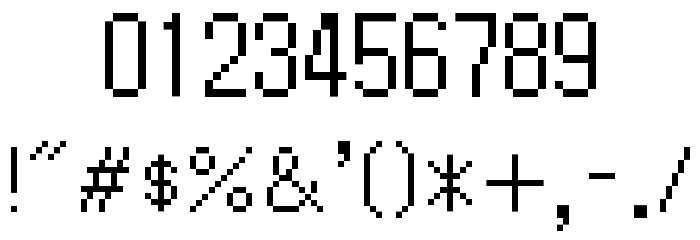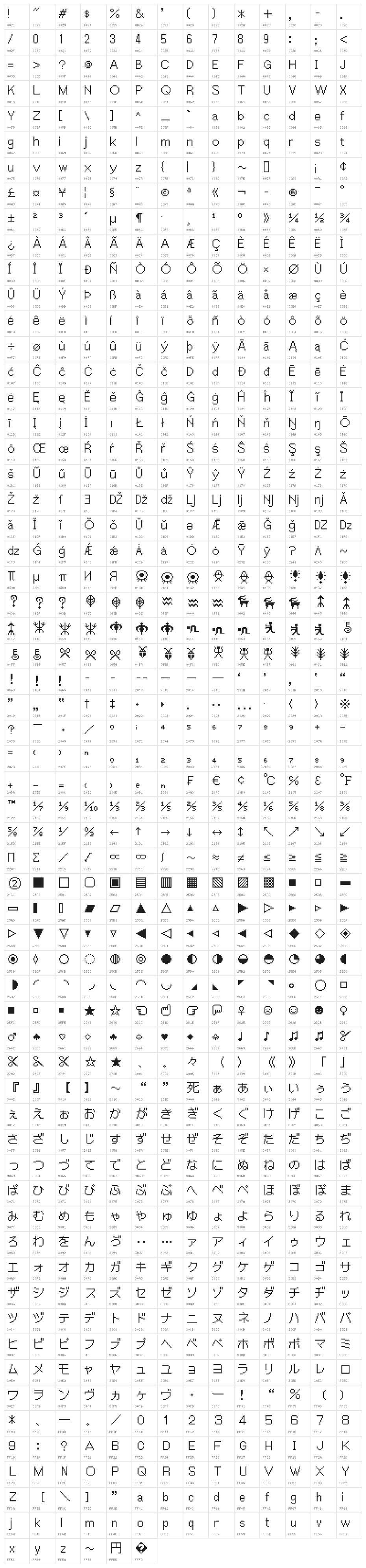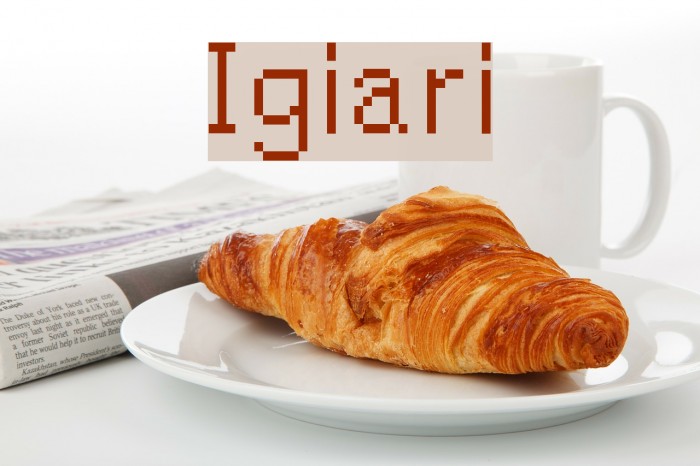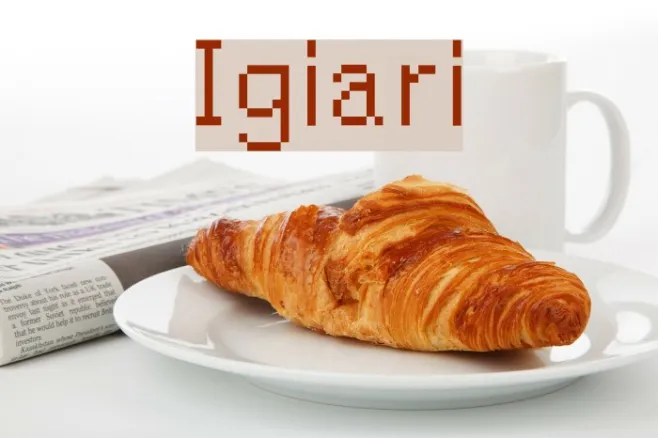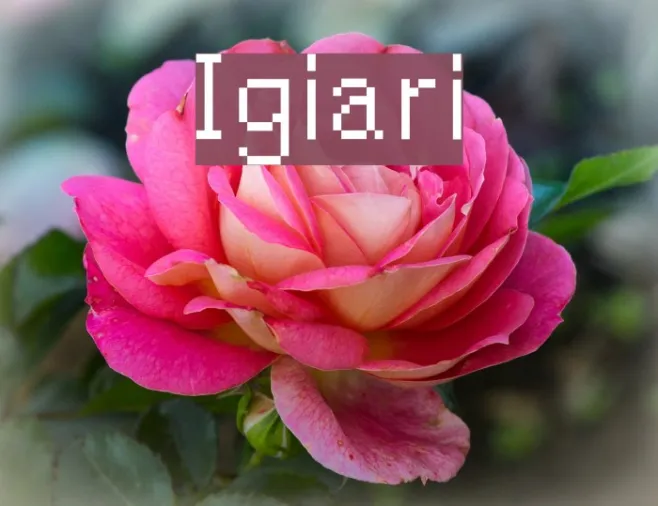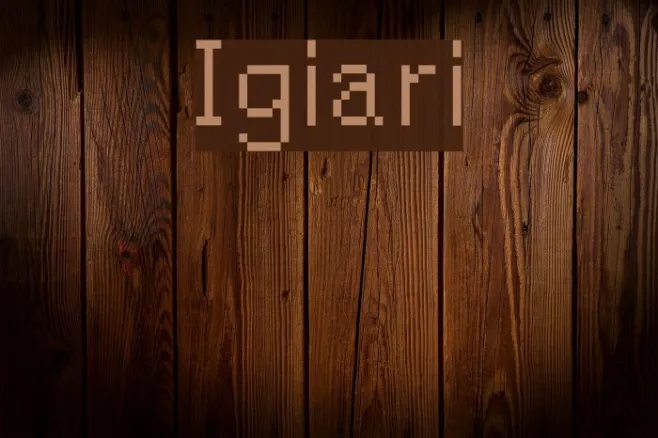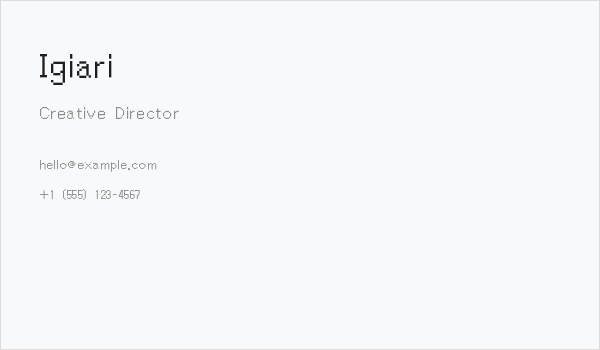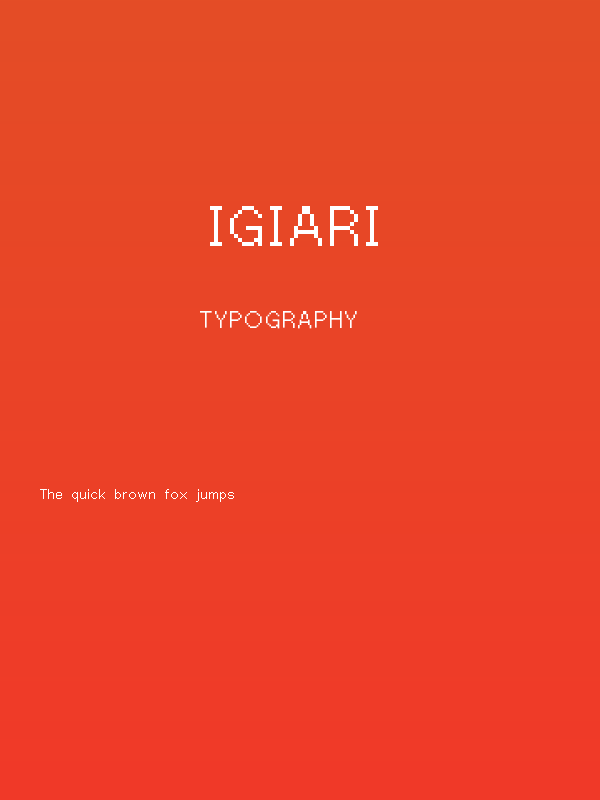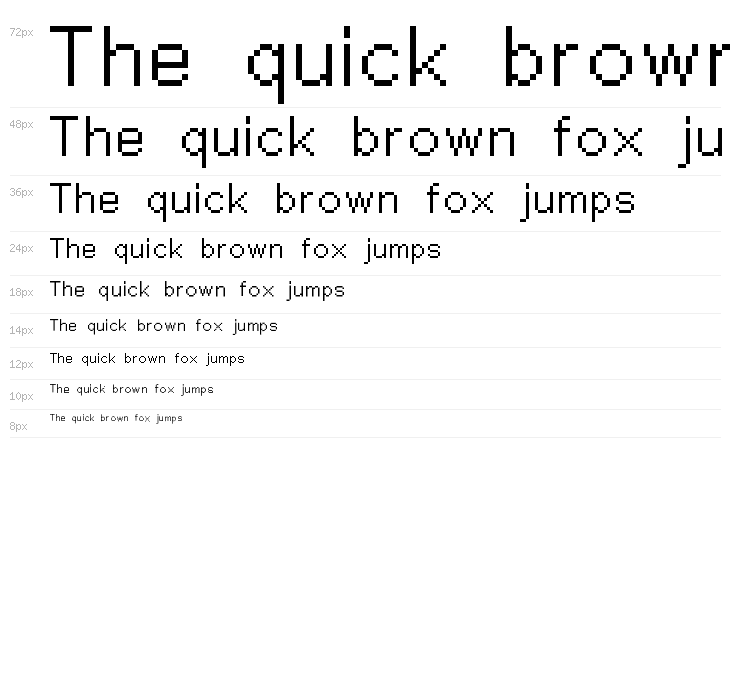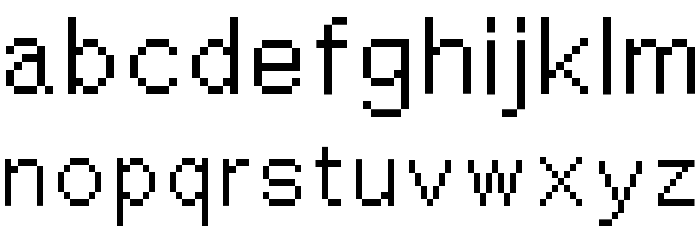
Igiari Font
This font features a pixelated, monospaced design reminiscent of early digital displays and retro video games. Each character is constructed with a grid-like precision, giving it a blocky and uniform appearance. The uppercase and lowercase letters maintain consistent height and width, enhancing readability and creating a cohesive look. Numbers and special characters follow the same structured pattern, ensuring a seamless integration across different text elements. The font's simplicity and geometric form make it ideal for projects that require a nostalgic or tech-inspired aesthetic.
| Use Case | Headlines, Digital displays, Coding interfaces |
| Proposed Projects | Ideal for retro video games, digital art, tech-themed designs, and coding interfaces. |